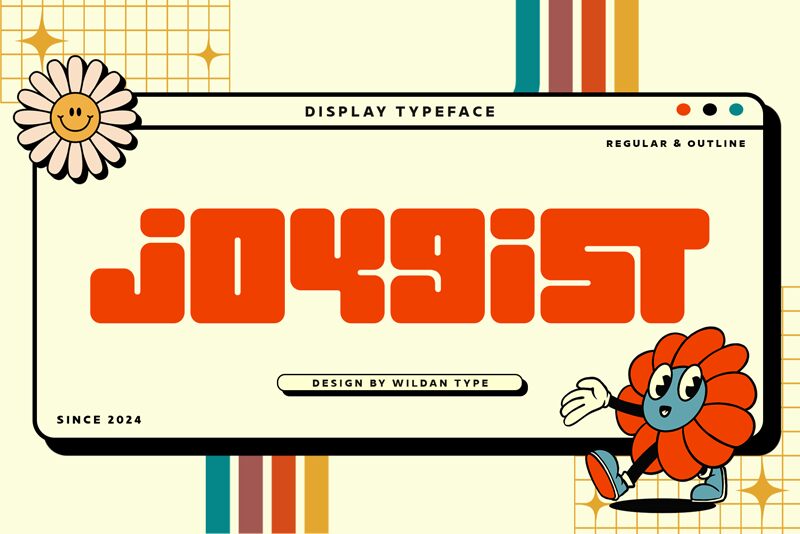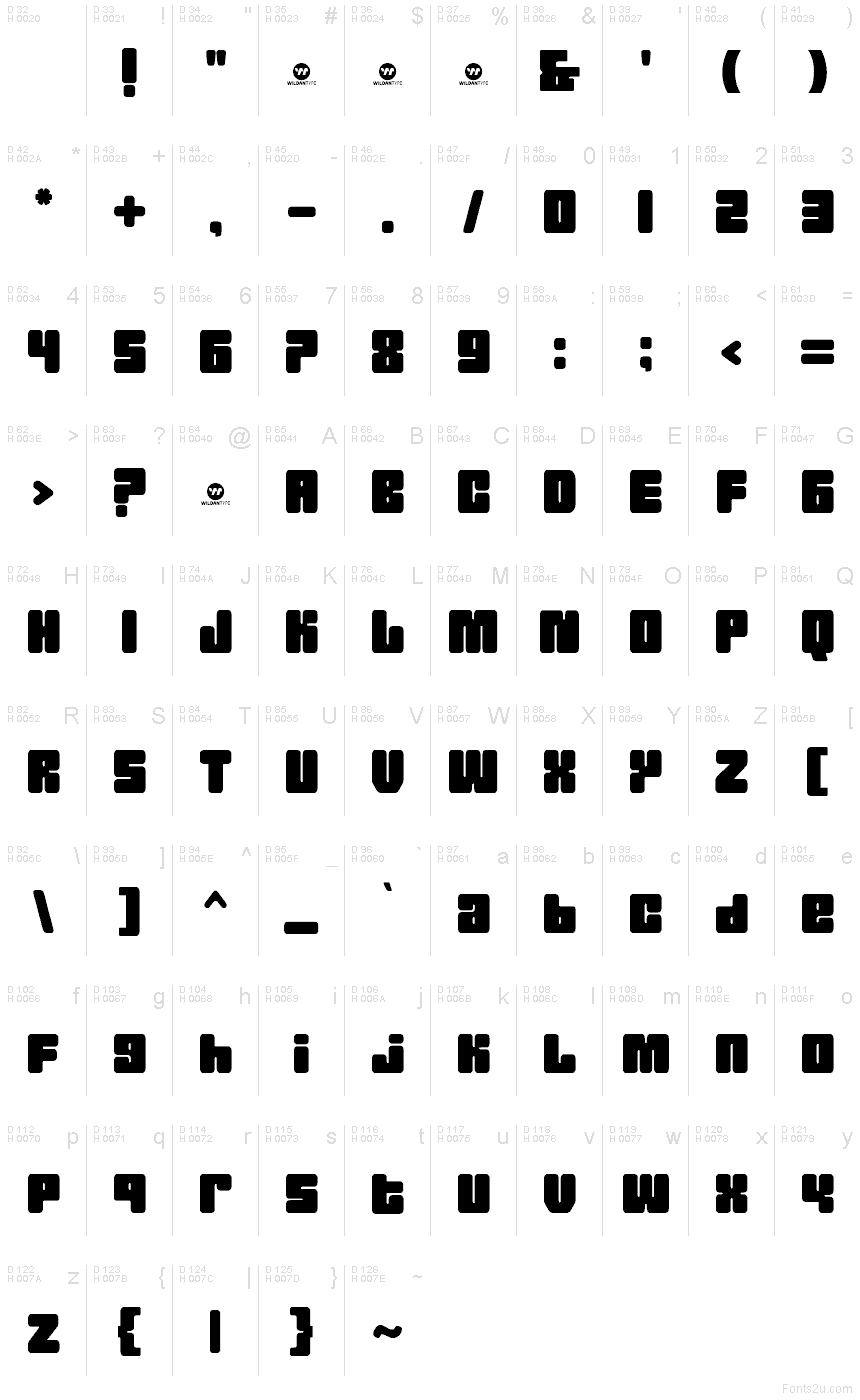
Joygist font by Wildan Type is a free groovy display typeface that turns every word into a chunky, soft-edged statement. Thick, pillowy rectangles lock together like retro building blocks, while the narrow, inky counters keep each letter readable inside those bold black shapes. The result feels both playful and mechanical, like a synthwave logo stamped into rubber.
Using Joygist, your titles don’t just sit on the page-they hit like a bass line. This free font shines on posters, album covers, gaming graphics, streetwear branding, stickers, and bold social media headers. It thrives at large sizes where its modular rhythm can really show, and pairs smoothly with a clean geometric sans for body text to keep things grounded.